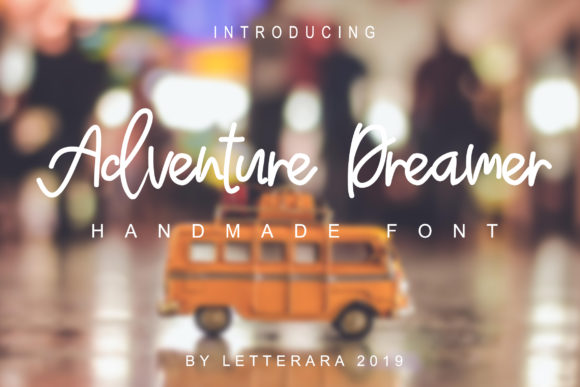
Welcome to the world of Adventure Dreamer, a script font family that promises to spark your creativity and take your designs to new heights. Dive into the world of Adventure Dreamer and transform your words into captivating works of art.
With four distinctive styles under its belt, Adventure Dreamer unlocks endless design possibilities. Each style boasts its own charm and elegance, inviting you to mix and match, layer and create unique visual masterpieces that radiate individuality. From casual and friendly to elegant and sophisticated, Adventure Dreamer adapts seamlessly to any project you throw its way.
Whether you're a graphic designer, a blogger, a social media enthusiast, or simply a creative soul seeking to elevate your visual storytelling, Adventure Dreamer is your ultimate companion. Its versatility knows no bounds, making it the perfect choice for crafting stunning logos, eye-catching social media graphics, enchanting wedding invitations, and any other project where creativity takes center stage.
Beyond its versatility, Adventure Dreamer is a font that speaks to the heart. Its charming handwritten style exudes a warm and inviting feel, captivating audiences with its authentic and approachable nature. It's the perfect font to convey heartfelt messages, personal stories, and moments of genuine connection.
Adventure Dreamer is more than just a font; it's an experience that ignites imagination and transforms words into art. Embrace the Adventure Dreamer spirit, unleash your creativity, and embark on a visual journey that will leave your audience breathless.